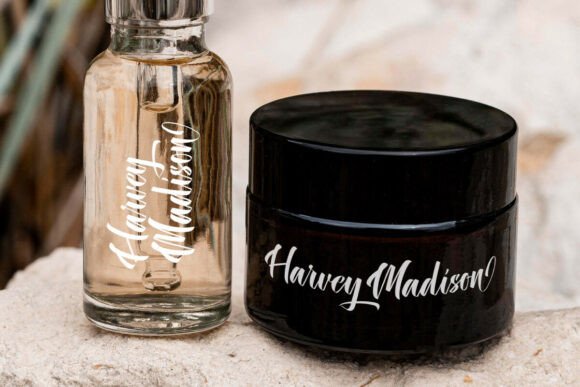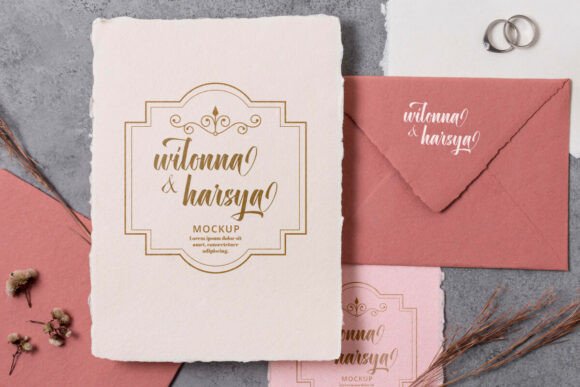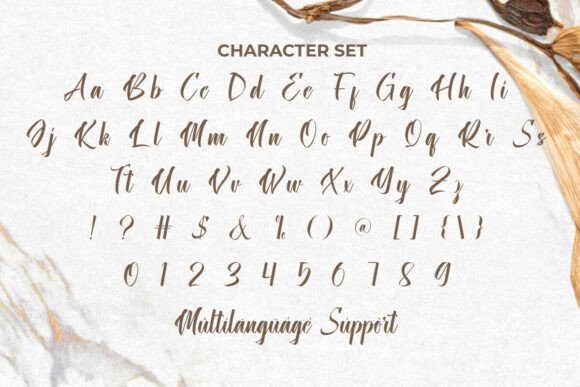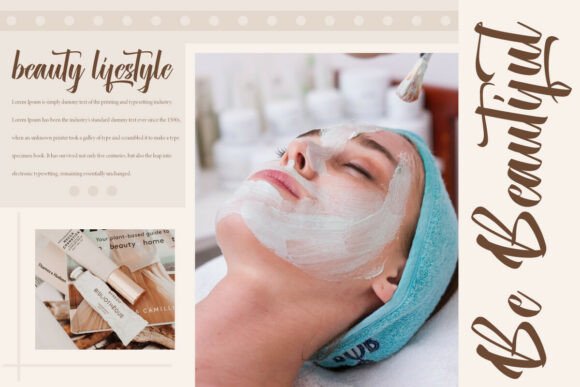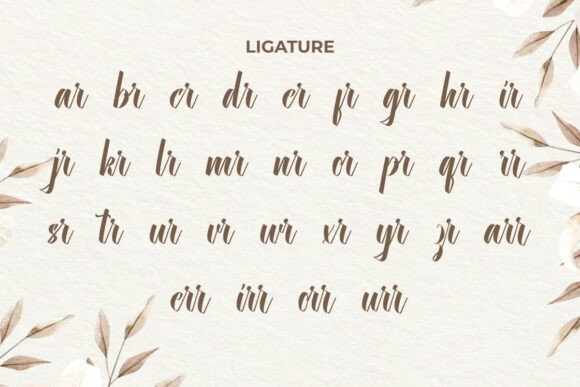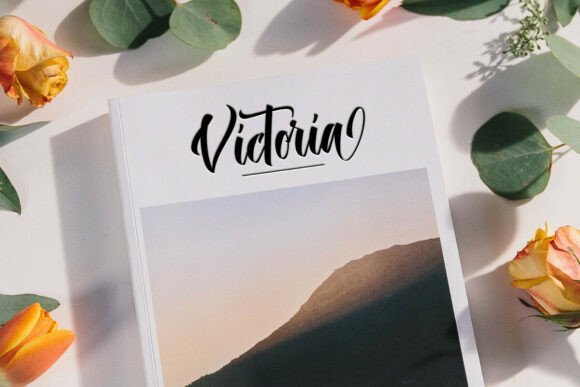
Discover the Charm of Harvey Madison Font: Elevate Your Designs with Effortless Elegance
In the world of typography, few fonts capture the essence of personal charm and effortless elegance as beautifully as the Harvey Madison Font. This delightful script typeface is designed to mimic authentic, fluid handwriting, bringing a warm, personal touch to any project. Whether you’re a designer looking for the perfect font for a client’s wedding signage or a crafter seeking a stylish typeface for personalized gifts, Harvey Madison is an excellent choice.
The Unique Characteristics of Harvey Madison Font
The Harvey Madison font boasts smooth, connected letters with a natural baseline, giving it a relaxed yet elegant feel. This unique blend of informality and sophistication makes it perfect for a wide range of applications, from stylish social media quotes to tasteful branding materials. The font’s earthy and romantic presentation also suggests a perfect use for projects related to natural products, fashion, and heartfelt communication.
One of the standout features of the Harvey Madison typeface is its versatility. Despite its handwritten style, the font is remarkably easy to read, making it suitable for both large headlines and smaller paragraphs. This flexibility allows designers to use Harvey Madison in a variety of contexts, from eye-catching titles to more detailed, body text.
The Harvey Madison font is particularly well-suited for projects that require a personal touch. Some of the ideal applications for this charming font include:
• Wedding Signage: Add a touch of romance and elegance to wedding signs, invitations, and decorations with Harvey Madison.
• Personalized Gifts: Create unique and thoughtful gifts, such as customized mugs, tote bags, and journals, with this beautiful script font.
• Social Media Quotes: Elevate your social media presence with stylish, eye-catching quotes that showcase the Harvey Madison font’s effortless charm.
• Branding Materials: Use Harvey Madison to create tasteful, memorable branding materials, such as logos, business cards, and brochures, that reflect your brand’s personality.
Why Choose Harvey Madison Font?
There are several reasons why designers and crafters should consider adding the Harvey Madison font to their collection:
• Unique Style: Harvey Madison offers a distinctive, handwriting-like style that sets it apart from more traditional typefaces.
• Ease of Use: The font’s PUA encoding and clear readability make it easy to work with, even for detailed projects.
• Versatility: From large titles to smaller text, Harvey Madison performs beautifully in a variety of applications.
• Emotional Connection: The font’s warm, personal feel helps create an emotional connection with the reader, making it perfect for projects that require a heartfelt touch.
The Harvey Madison Font is a delightful script typeface that brings a touch of effortless elegance and personal charm to any project. Its smooth, connected letters, natural baseline, and earthy presentation make it perfect for a wide range of creative applications. Whether you’re designing wedding signage, crafting personalized gifts, or creating stylish social media content, Harvey Madison is an excellent choice. With its PUA encoding for easy access to glyphs and swashes, this versatile font is sure to become a favorite in your design arsenal.
Embrace the unique charm of Harvey Madison Font and elevate your designs with a warm, personal touch that resonates with your audience.